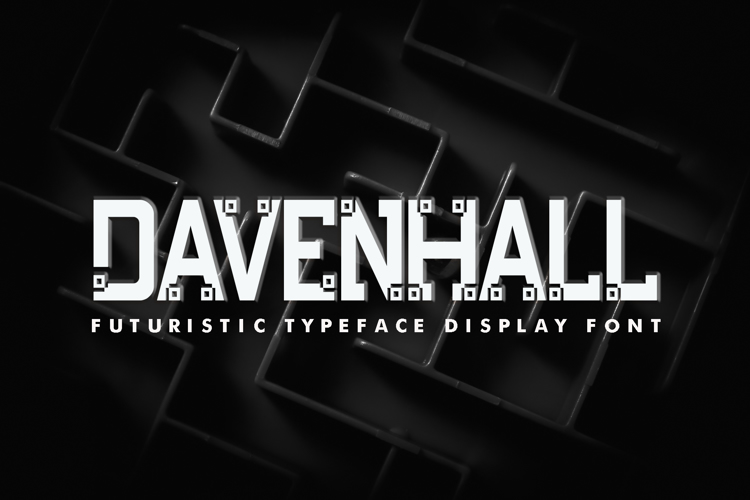
Davenhall Font
Introducing DAVENHALL, an elegant display with futuristic look. Perfect for who needing a touch of elegancy, stylish, unique bold type, and modernity for their design. make your design projects look more such as logo, branding, poster, magazines, labels, merchandise, invitation, presentation, advertising and so much more!